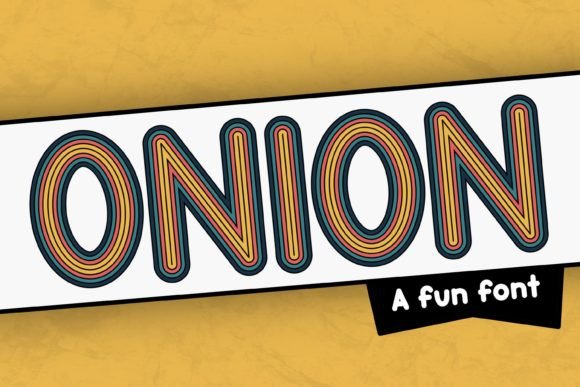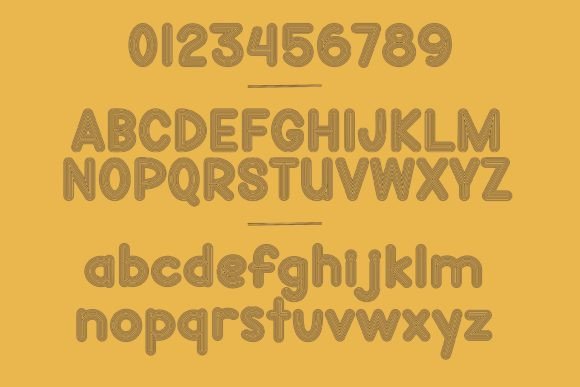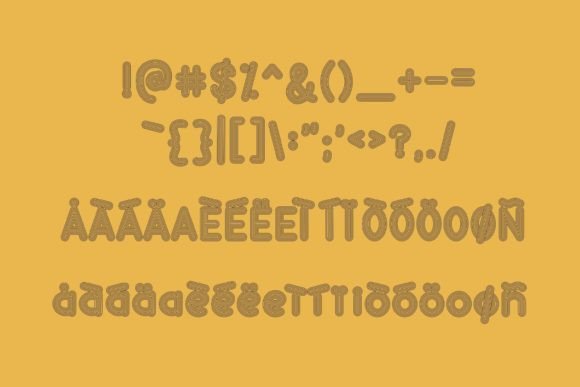
Onion Font: A Bold Retro Display Font for Eye-Catching Headlines!
About the Onion Font
Elevate your designs with Onion Font, a font that combines sophistication with readability. Meet Onion, a quirky and bold display font designed to bring a vibrant, retro flair to your projects. With its concentric lines and playful style, Onion is perfect for posters, branding, headlines, and any design that needs an extra punch of personality. The layered look of the letters adds depth and makes this font ideal for a variety of creative uses, from vintage-inspired designs to contemporary, fun projects.
Onion’s bold, retro style shines in headlines, short text blocks, and logos where its quirky personality can make a statement. It’s also well-suited for packaging design, especially for products targeting a younger, playful demographic. However, its layered construction makes it less legible for body copy or extended text; avoid using it for lengthy paragraphs or UI elements requiring high readability.
Pairing Onion effectively requires considering its vibrant energy. A clean, geometric sans-serif like Futura or a neutral serif such as Garamond would offer a sophisticated counterpoint, balancing Onion’s playful boldness. For a more retro feel, consider pairing it with a script font possessing a similar vintage vibe, but with a calmer stroke weight.
Onion’s overall personality is best described as playful and retro-modern; brands focused on fun, vintage-inspired aesthetics, or those needing a strong visual punch will find it ideal. Consider its use for projects related to entertainment, food, or fashion, where a bold and slightly unconventional visual language is desired.